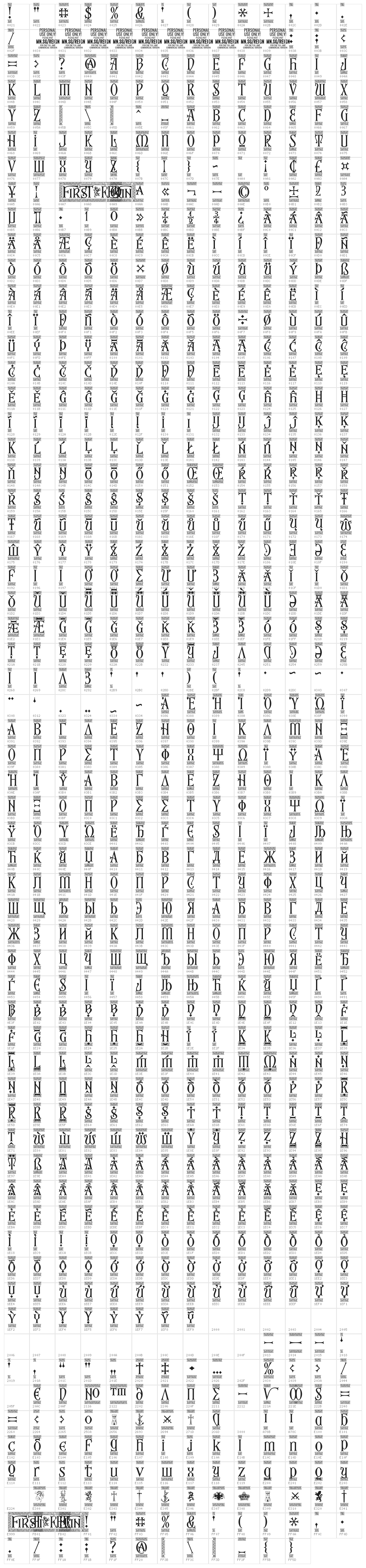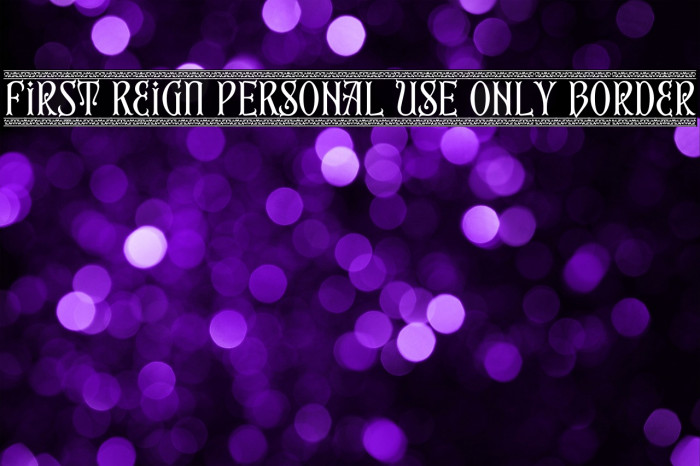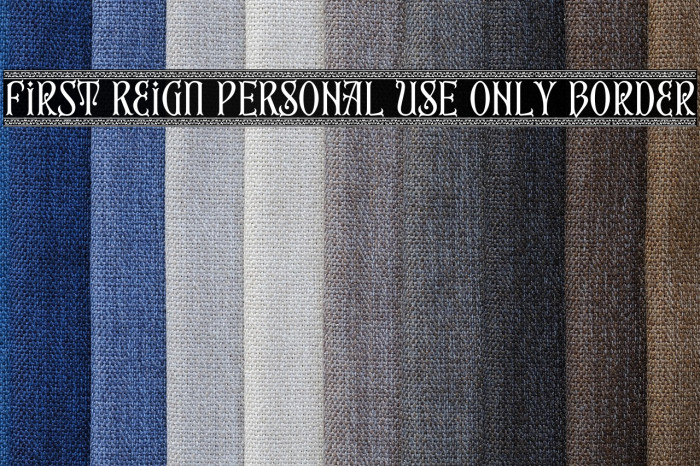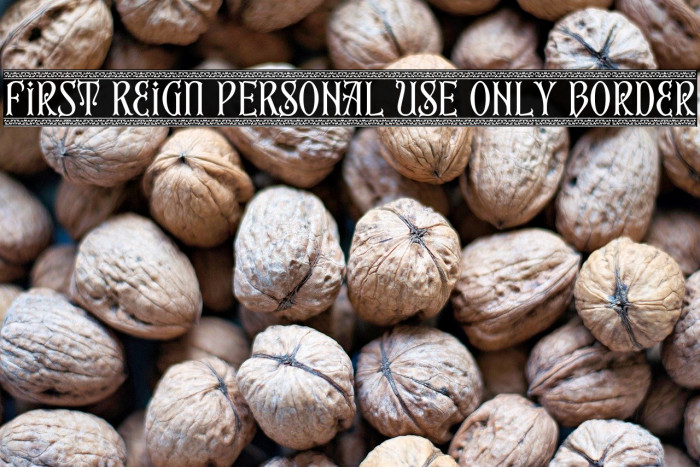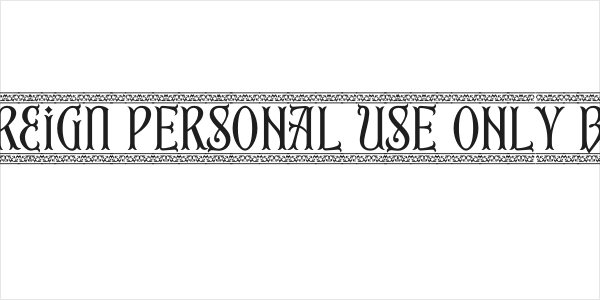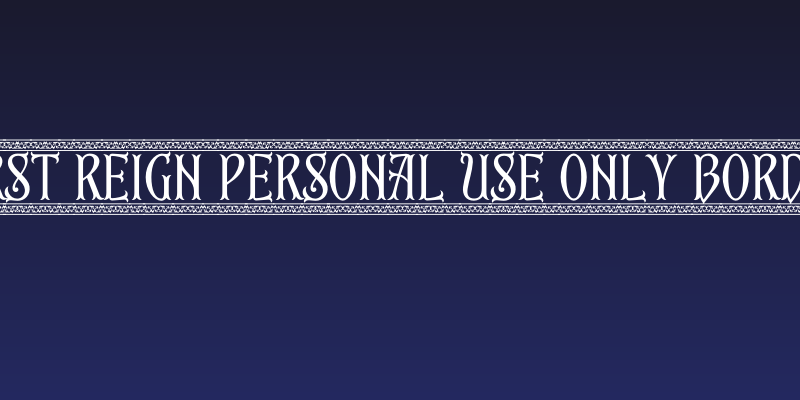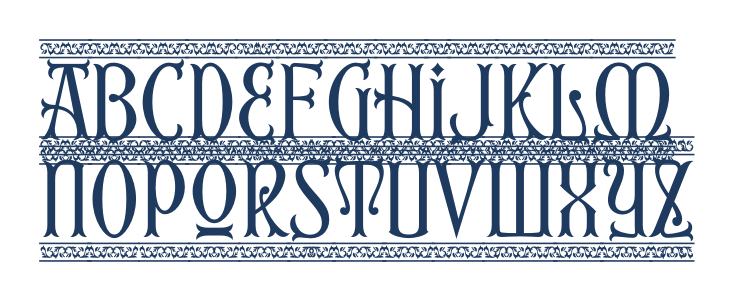
First Reign PERSONAL USE ONLY Border Font
First Reign PERSONAL USE ONLY Border Description
This font features a distinctive and ornate style, characterized by its intricate and decorative elements. The uppercase letters are bold and commanding, with unique flourishes and embellishments that give them a regal and historical appearance. The lowercase letters maintain a similar style, with a slightly more subdued presence. The numerals and special characters are equally ornate, ensuring consistency throughout the typeface. This font is ideal for projects that require a touch of elegance and sophistication, such as invitations, posters, or branding materials that aim to convey a sense of luxury and tradition.